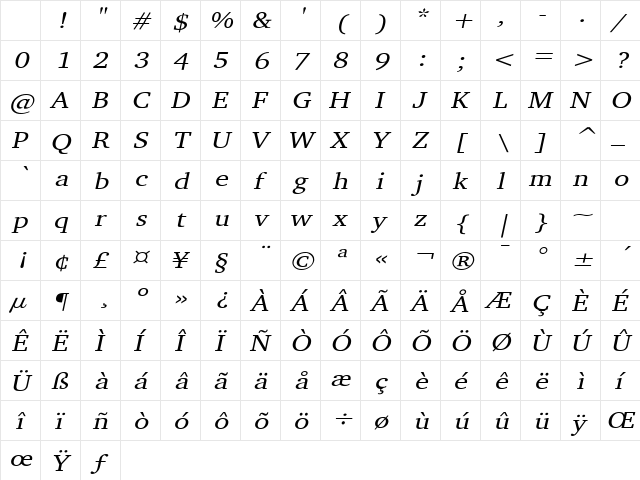
Challenge Wide is a composed and adaptable typeface that performs quietly and consistently across a wide range of design contexts. The slanted form adds forward momentum and visual energy.
Pro Tip: Use Challenge Wide for emphasis, pull quotes, and subheadings where its slanted energy can add rhythm to the layout.